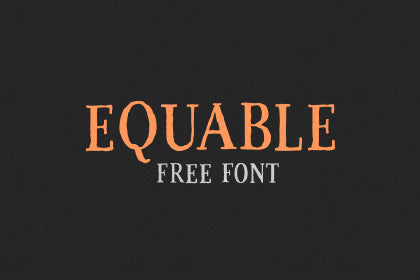
Free Equable Retro Font
Today we're glad to feature this free equable retro font. Free Design Resources has created this amazing and beautiful typeface. Easily amaze your audience with this cool font and make your graphic designs pop up from the crowd.